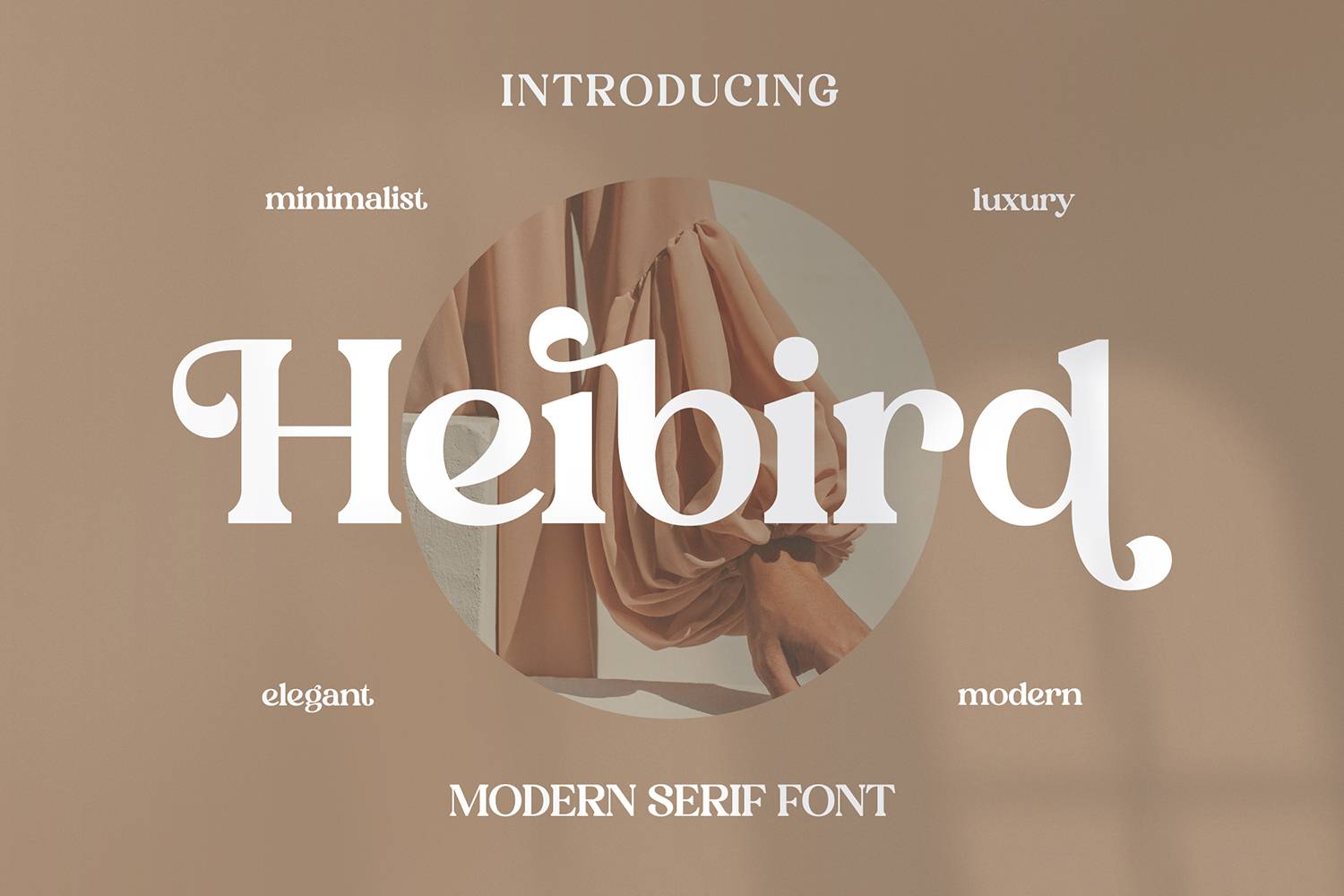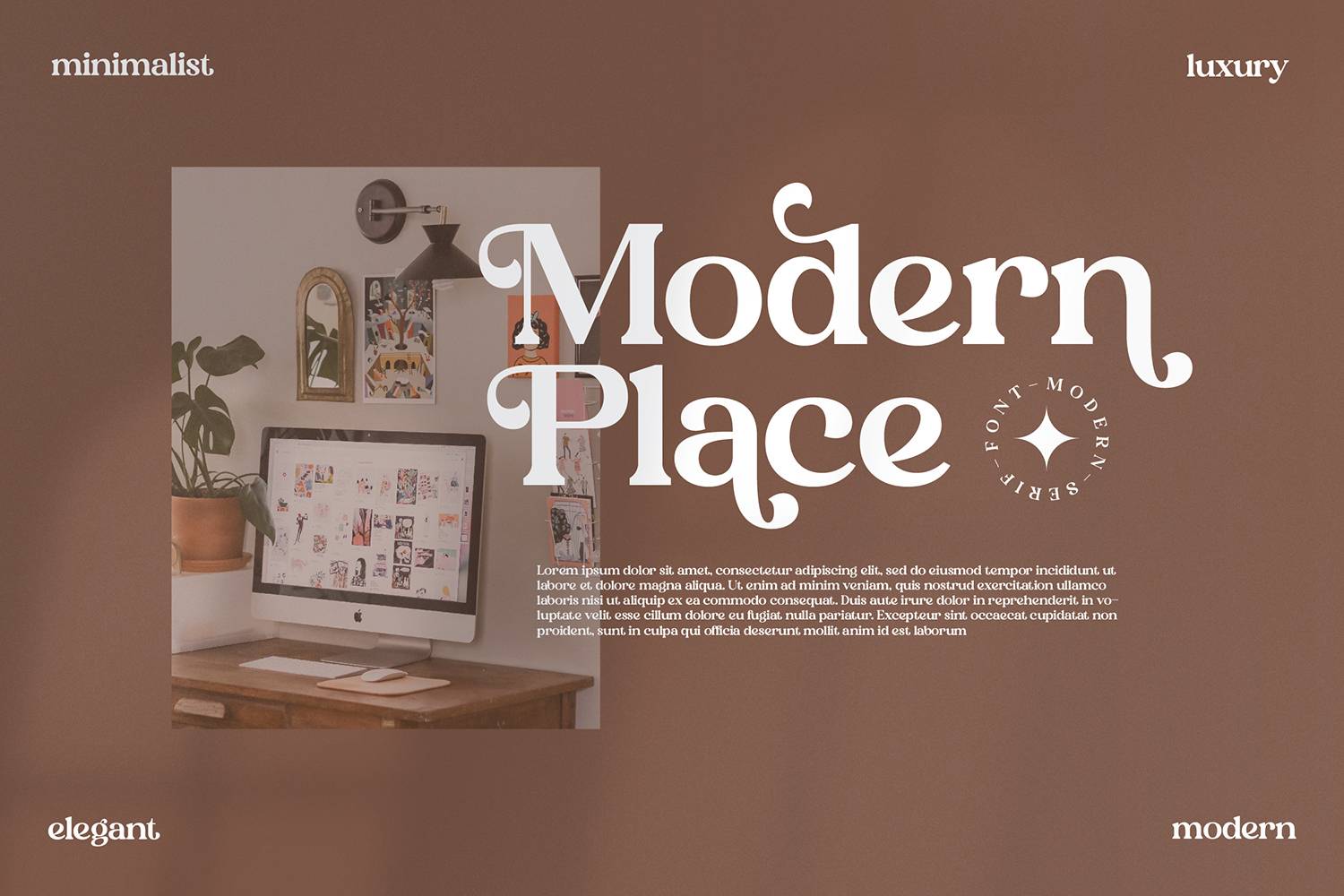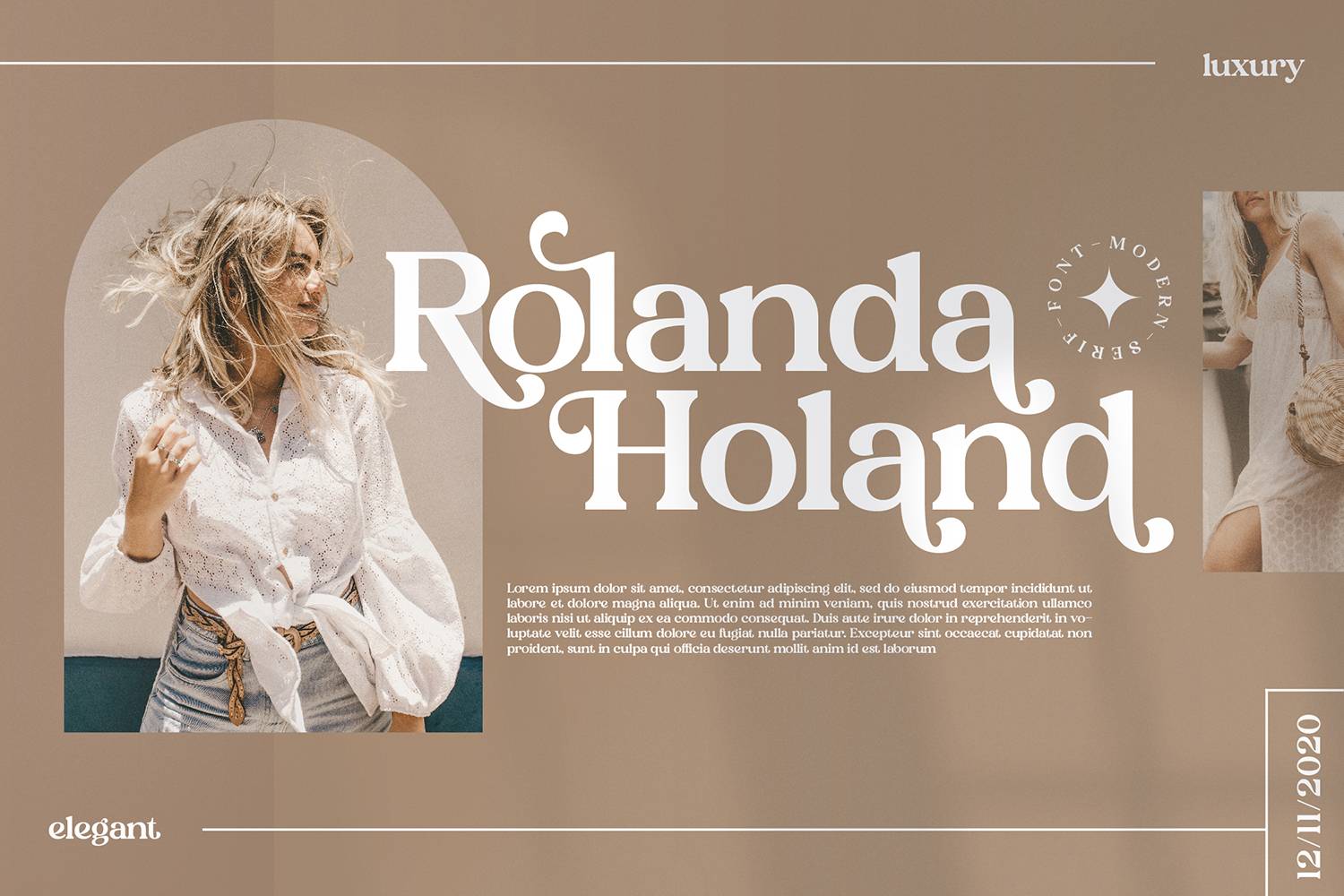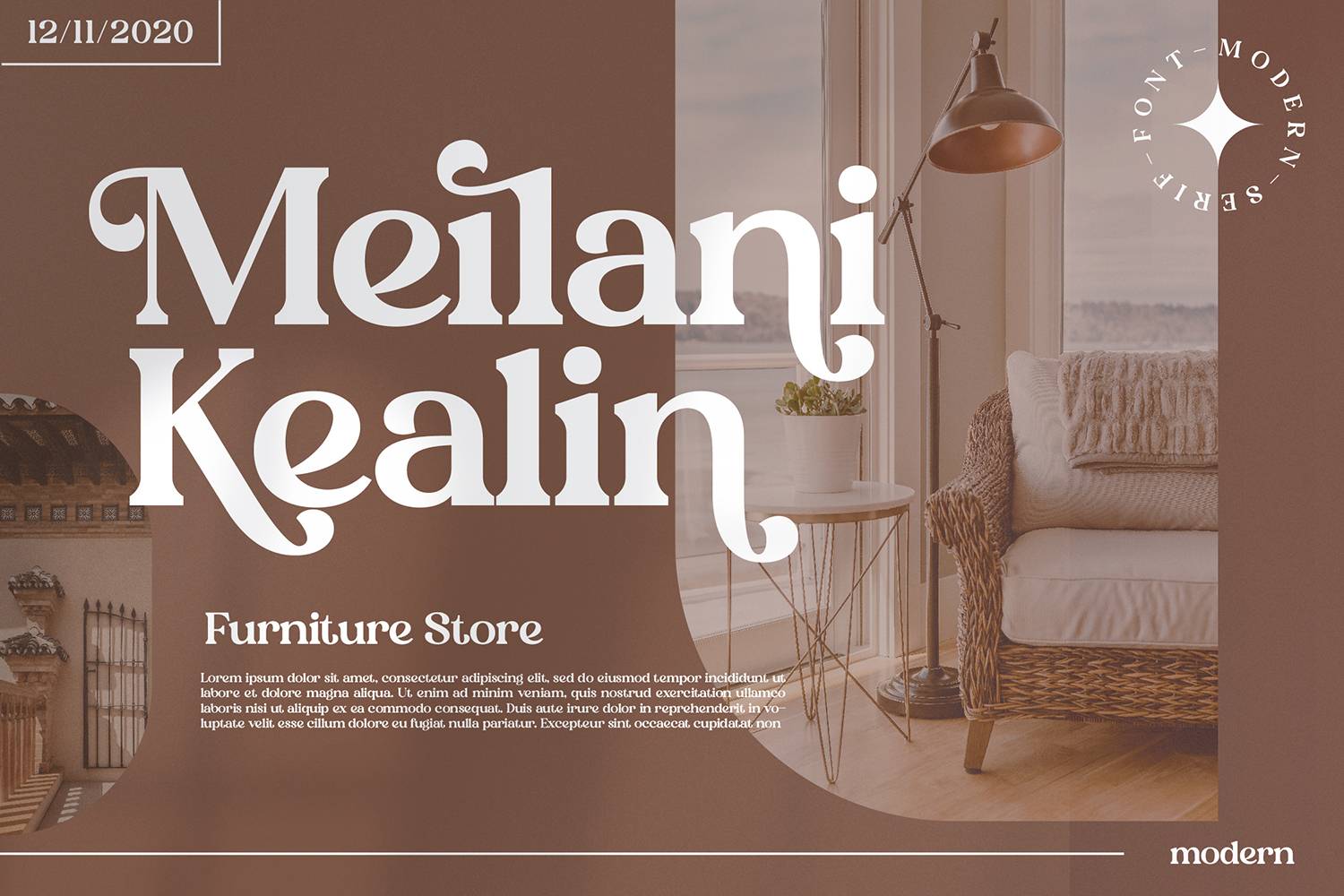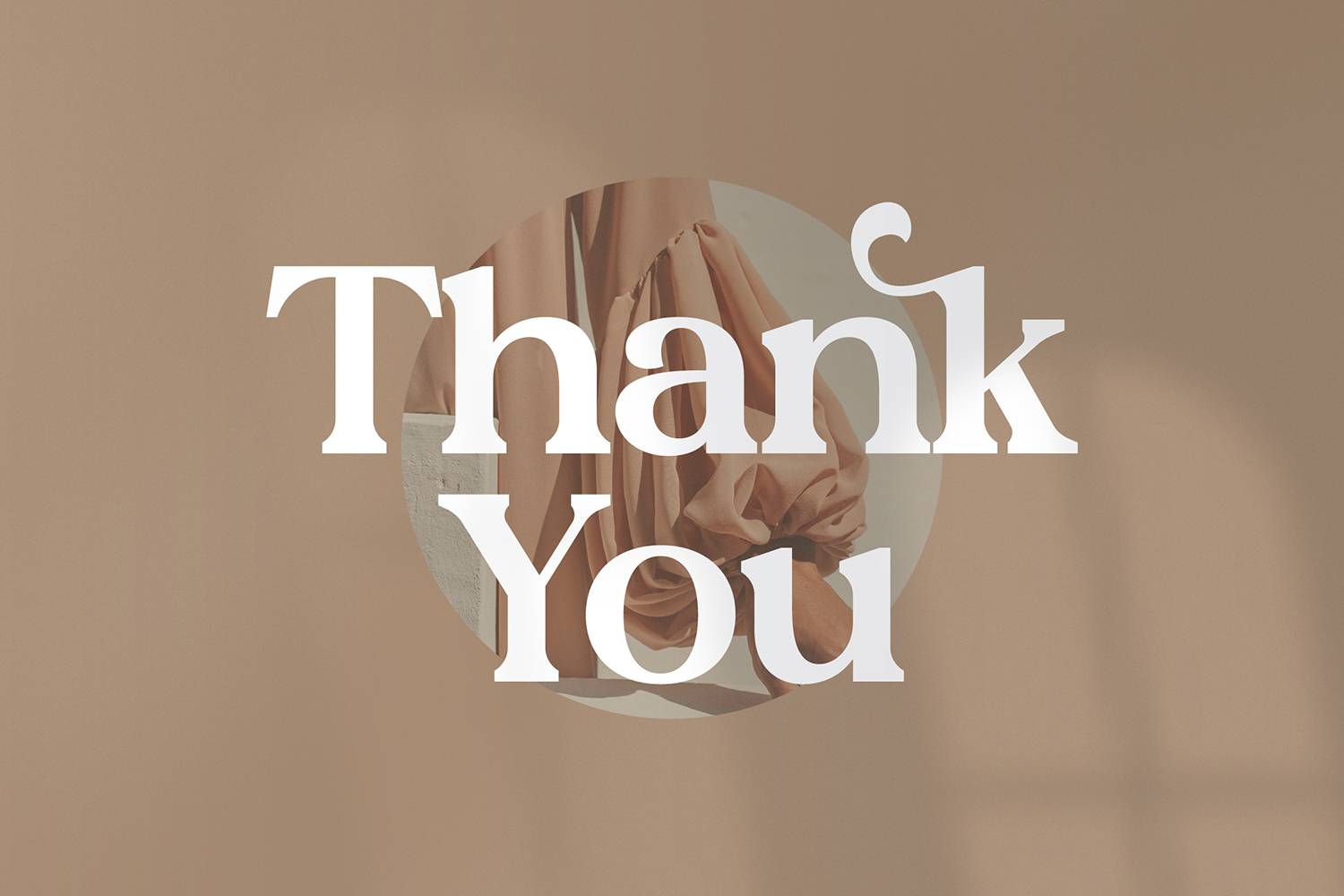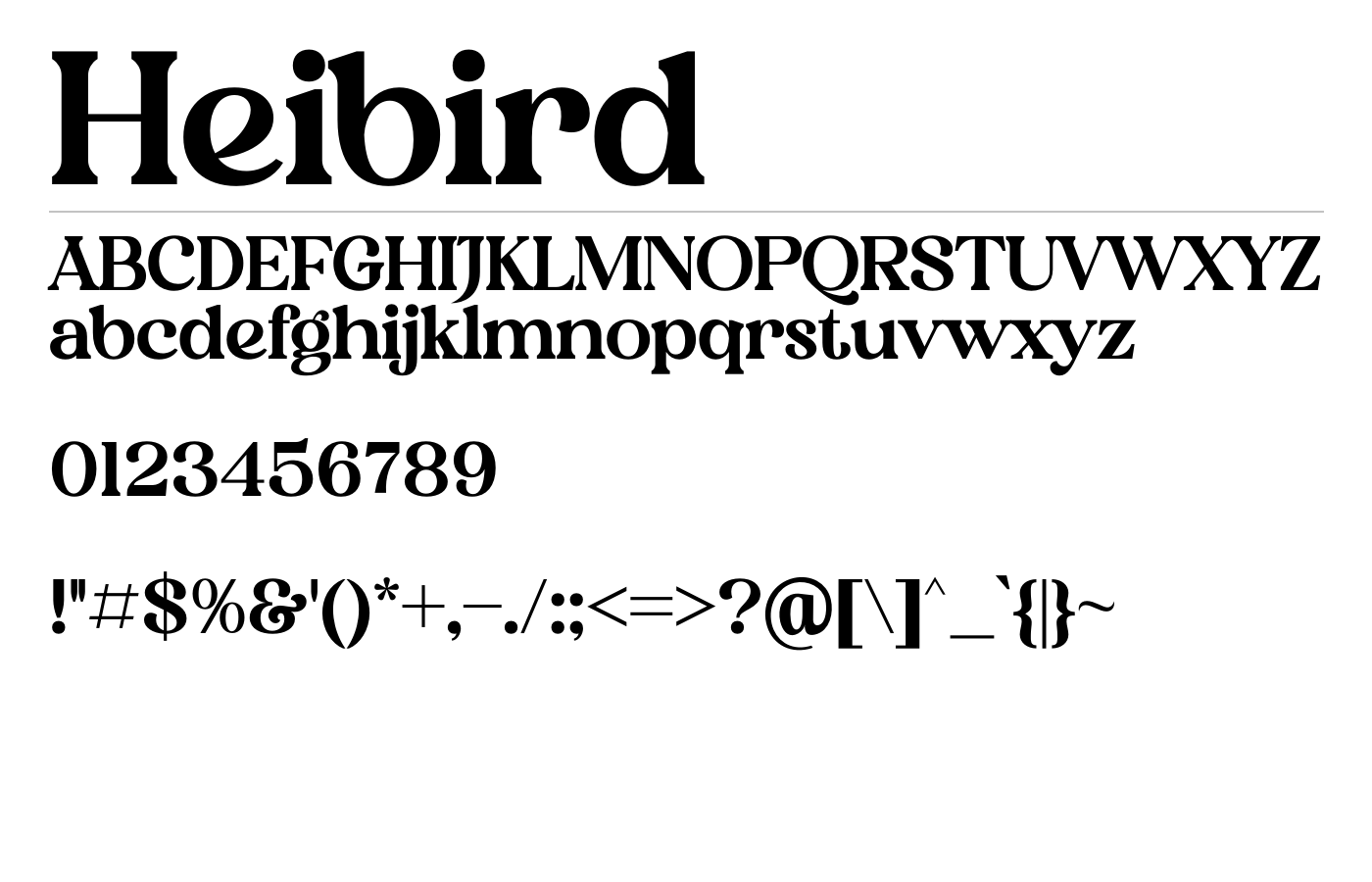
Heibird is a striking serif typeface characterized by its strong contrast between thick and thin strokes and sharp, bracketed serifs that lend a refined yet bold appearance. Its classic elegance paired with sturdy letterforms makes it ideal for sophisticated branding, editorial headlines, and luxury packaging where a sense of tradition and authority is desired. The font’s distinctive shapes and balanced proportions also ensure it stands out in print and digital contexts without sacrificing readability.
Heibird Typeface Font
About Heibird Typeface Font